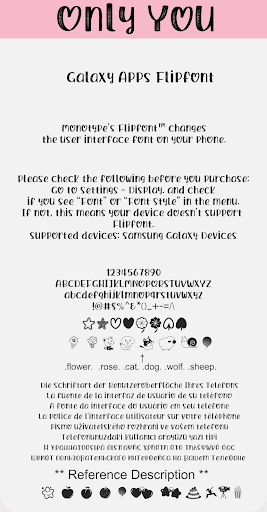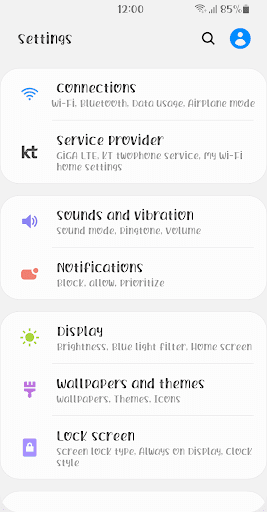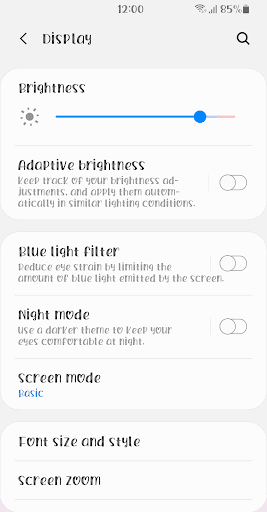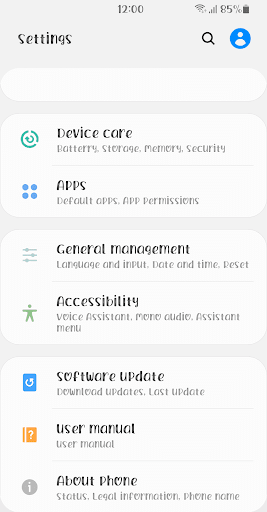
BROnlyYou
The only handwriting.
This font has some feature.
1 .flower. .rose. .cat.. .dog. wolf. sheep. ,heart, ,star, ,boy, ,girl, ,club, ,phone, ,finger, ==> Convert to Icon
2 .^^. .\/. .**. .Apple. .apple. .peach. .Peach. .pear. .Pear. .balloon. .Balloon.
.heart. .Heart. .star. .Star. .cake. .Cake. .dance. .Dance.
.car. .Car. .train. .Train. .movie. .camera. .pocorn. .snail.